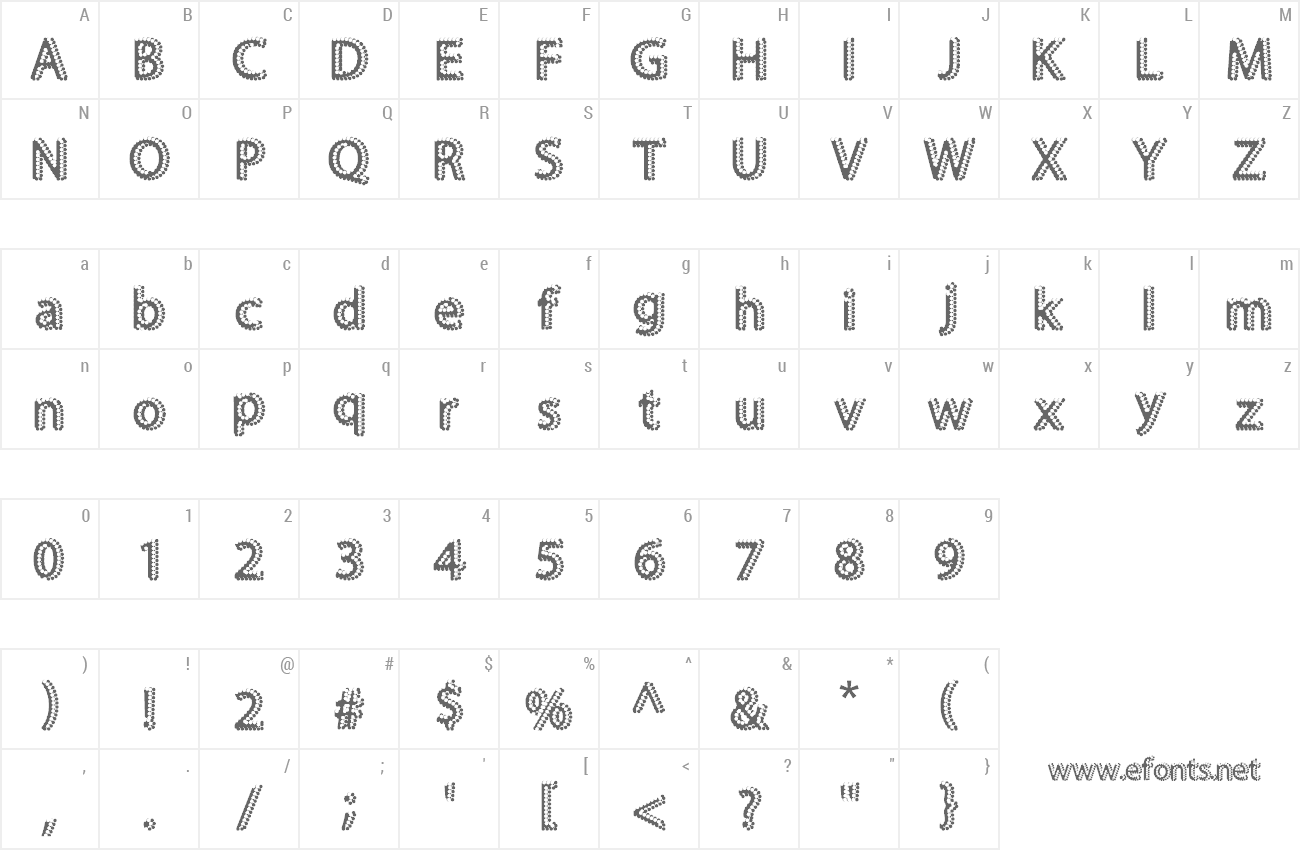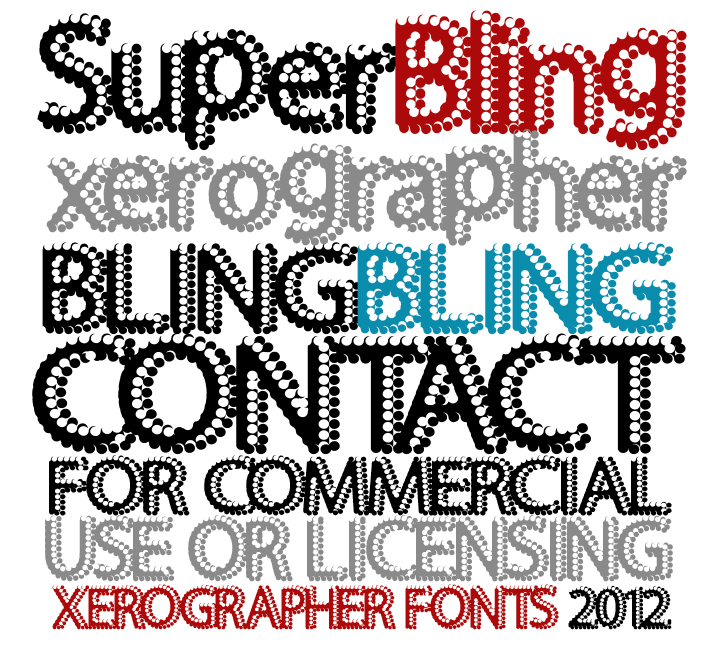
Preview and download SuperBling Font. Created by Xerographer Fonts in Fancy Decorative styles with Donationware license.
Superbling! Enjoy this 3d illusion effect font ***It is NOT FREE! FREE TO TRY! Donate for ANY Personal Use Today PayPal Donations: maxinfeld@hotmail.com Suggested Donation $5-$25 ***Contact for ANY Commercial Use!!! Contact / Facebook fb.com/xerographer |